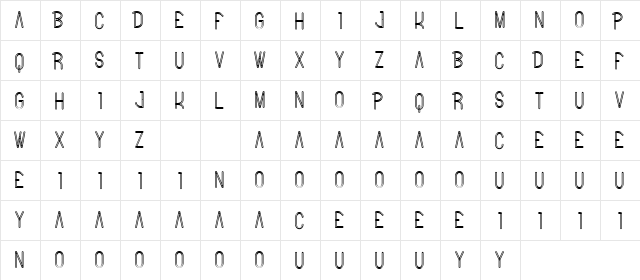
Bitter Space Demo Line
Design Context for Bitter Space Demo Typeface
Bitter Space Demo takes a measured approach to typography — its balanced proportions and neutral character make it a reliable workhorse for both digital and print work.